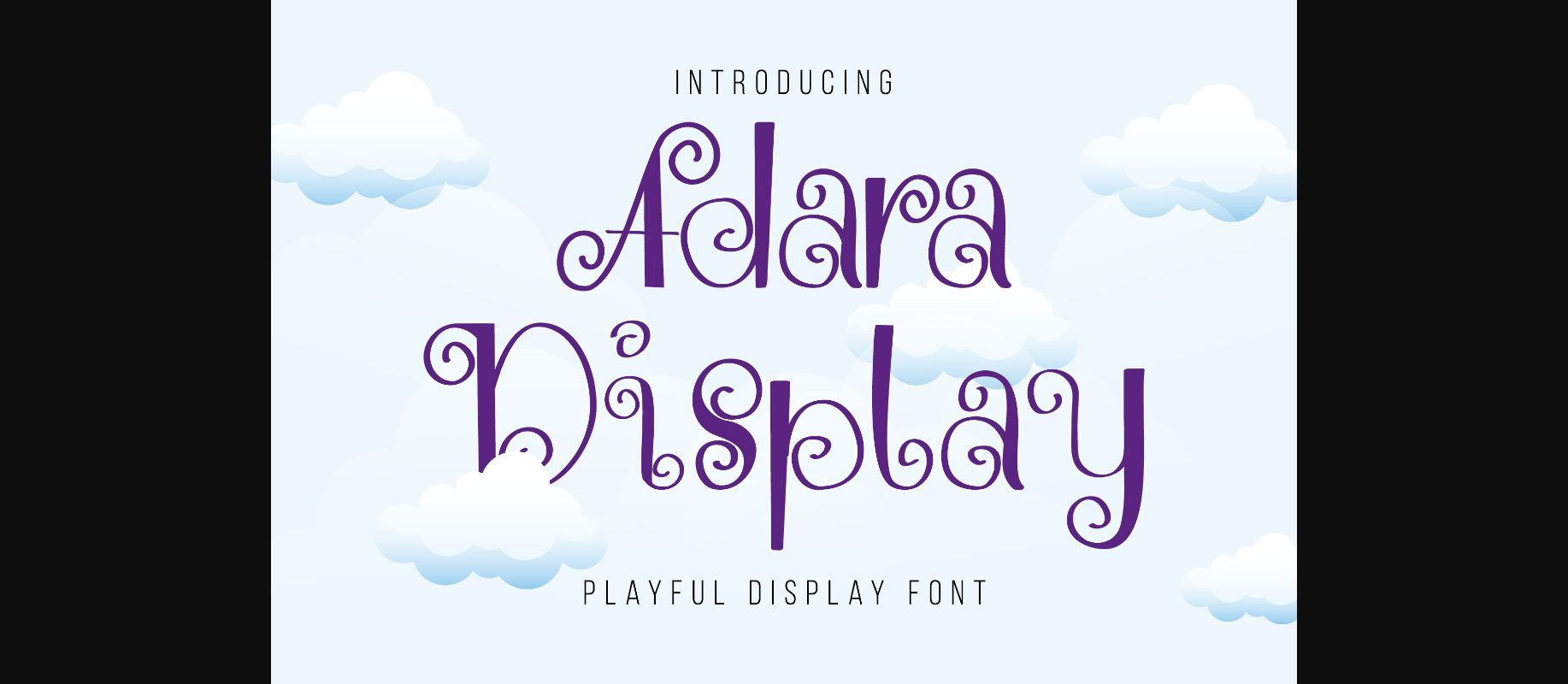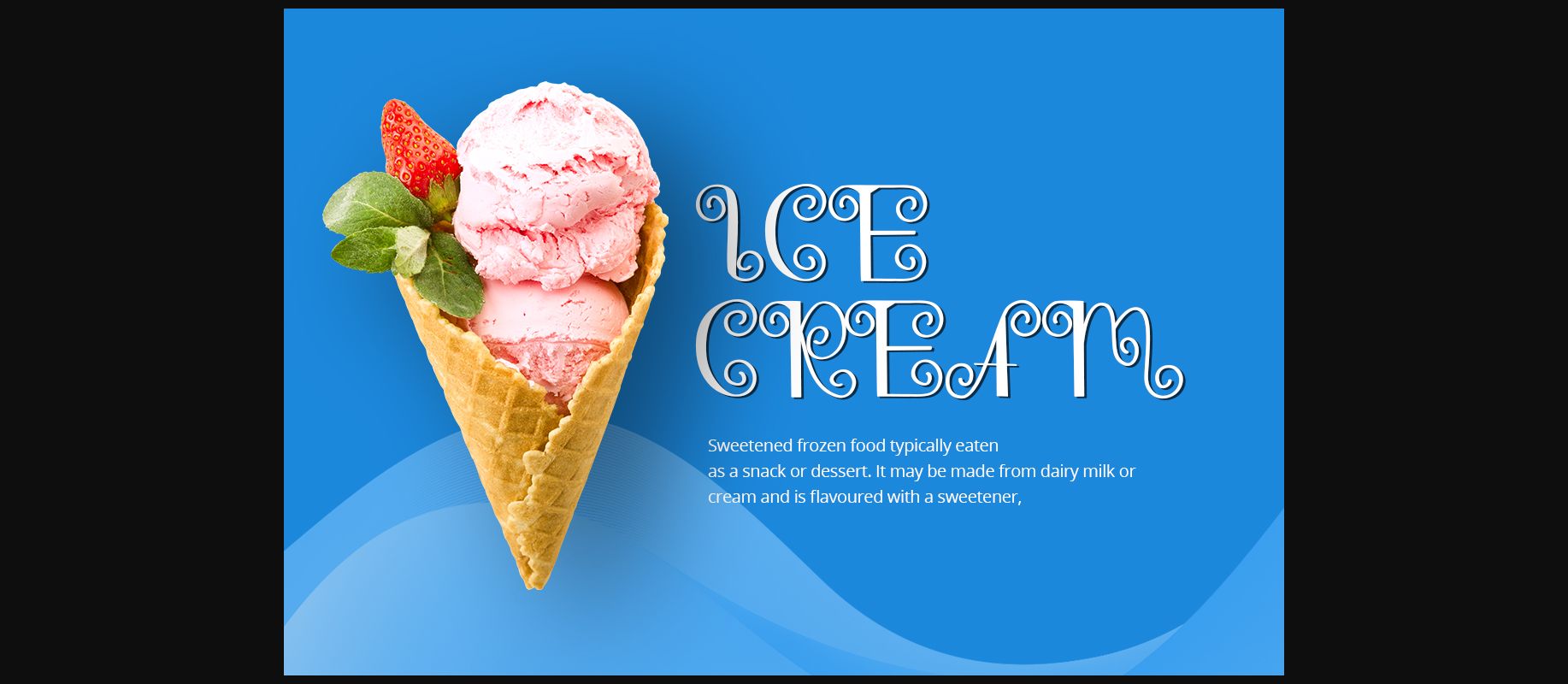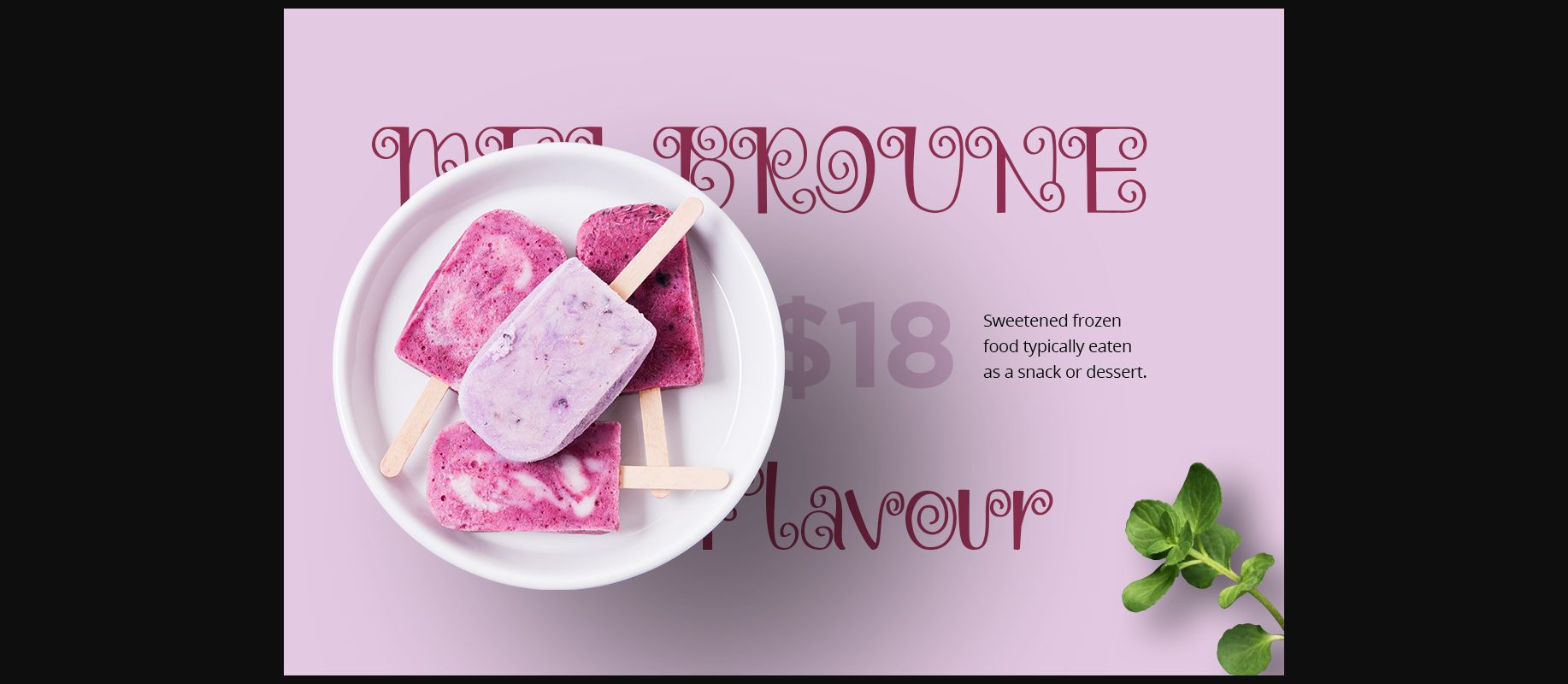
About Adara Font
Adara is a handcrafted playful decorative font. Suitable for any graphic designs such as branding materials, kindergarten, t-shirt, print, business cards, logo, poster, t-shirt, photography, quotes .etc